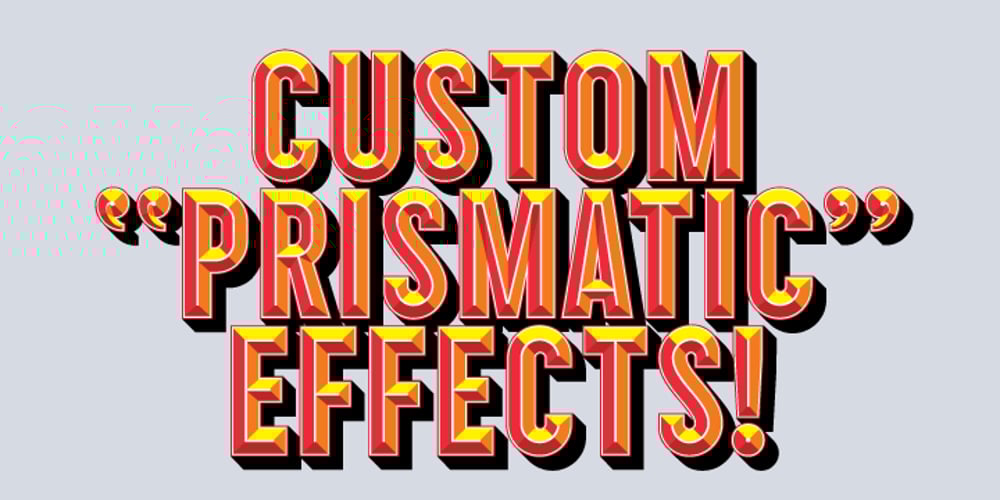
Prismatic Font Family was designed by Alex Sheldon and published by Match & Kerosene. Prismatic contains 1 styles and family package options. Prismatic is an 11 font system that can be layered in different ways to create a number of classic titling effects used commonly in signage by skilled sign painters and sign makers. Prismatic’s layer combinations give you complete control in producing styles like inline, outline, collegiate, drop shadow, 3D, convex, beveled, and detached shadow. It’s condensed base can be used alone and/or allows you to plot out titles and adjust leading, kerning, and alternates. Each font contains the same metrics, so when your title is set, copy and paste-in-place to create layers of different weights/styles to build out your desired effect. Some fonts are clearly dependent on layer stacks to create desired effects, which is why certain fonts in this family are not available for individual sale. Prismatic works great in any graphics application that allows you to utilize layers. Sign shops take note: this font system allows you to create rich sign lettering effects for vinyl cut signs without editing the font itself. Each font comes with a free companion PDF for those who would rather “handset” these layers. PDF’s will contain the fonts you purchase in an outlined vector stack. Advantages to using a handset method include: 1. Adjust kerning, leading, size, and spelling by dragging stacked layers opposed to making changes in every font layer. 2. Visualizing letter styles in a full stack. 3. Utilizing global color. 4. Vector curves. 5. Better aliasing control. 6. Font management & installation of font software is not required.